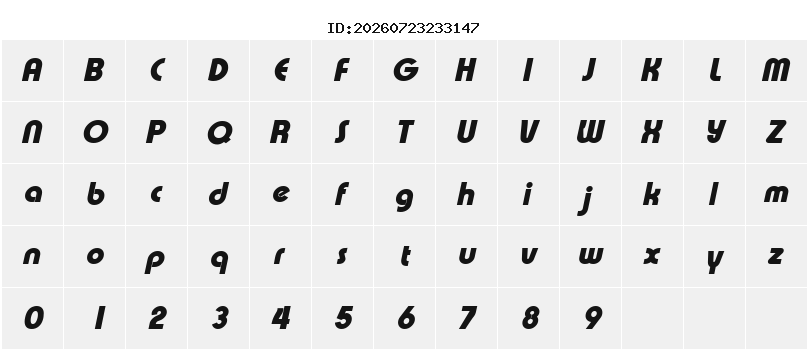
• Font Name: ExpressaLH
• Font ID: Altsys Fontographer 3.5 ExpressaLH Bold Italic
• Full Font Name: ExpressaLH Bold Italic
• PostScript Name: ExpressaLH-HeavyBoldItalic
About ExpressaLH.ttf
ExpressaLH.ttf is a modern, elegant sans-serif font designed for ultimate readability and visual harmony. Perfect for branding, headlines, web design, and print materials.